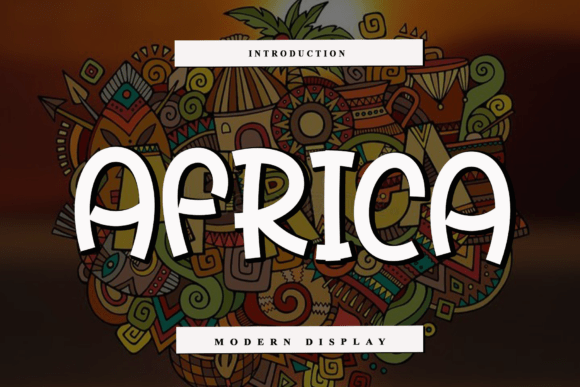
The Ultimate Guide to Africa Font: Unleashing the Vibrancy of African Culture in Your Designs
I’ll never forget the time I was working on a project for an African cultural festival. I had all the graphics, images, and content ready, but something was missing – the perfect font. I scoured the internet, tried countless fonts, but none seemed to capture the essence of African culture. That’s when I stumbled upon Africa Font, a bold, rounded, and expressive modern display font that instantly resonated with the project’s theme.
First Impressions: A Font that Speaks to You
Africa Font is more than just a font – it’s a statement piece. Its chunky, organic letterforms and powerful presence give it a vibrant, handcrafted, and culturally rich personality. This font is perfect for African-themed event posters, cultural education materials, ethical branding, apparel design, and any project that needs a strong, cheerful, and unique visual voice.
- ✨ Unique and authentic African-inspired design that adds a touch of cultural richness to any project
- ✅ Highly legible and versatile, making it perfect for a wide range of applications, from posters to apparel
- 🎉 Vibrant and energetic feel that instantly grabs attention and adds a pop of personality to your designs
While Africa Font is an amazing addition to any design project, there are a few things to keep in mind:
- 🤔 May not be suitable for body text due to its bold and chunky design, which can be overwhelming for longer blocks of text
- ⚠️ Limited use of punctuation and special characters, which may limit its use in certain contexts
The Story Behind Africa Font
Africa Font was inspired by the rich cultural heritage of Africa, with its bold and expressive letterforms paying homage to traditional African patterns and art. The font’s designer aimed to create a font that not only celebrates African culture but also adds a touch of vibrancy and energy to any design project.
| Font Name | Africa Font |
| Author | Sansana |
Q: What type of projects is Africa Font best suited for?
A: Africa Font is perfect for African-themed event posters, cultural education materials, ethical branding, apparel design, and any project that needs a strong, cheerful, and unique visual voice.
Q: Is Africa Font suitable for body text?
A: While Africa Font is highly legible, its bold and chunky design may not be suitable for longer blocks of body text. It’s best used for headlines, titles, or short paragraphs.